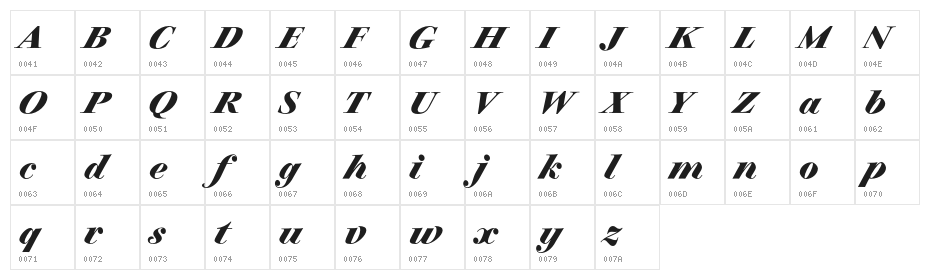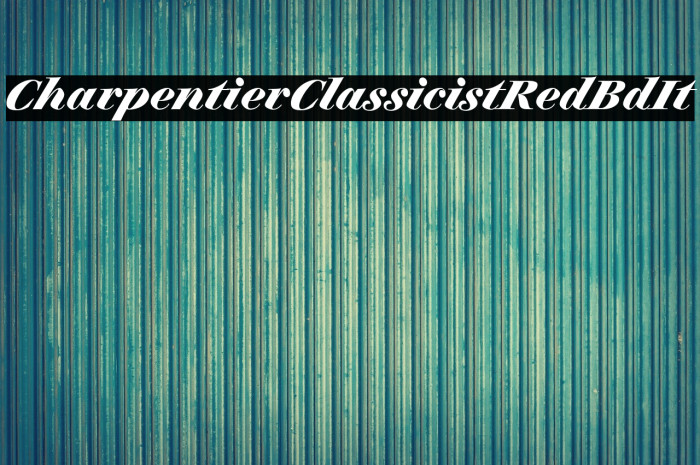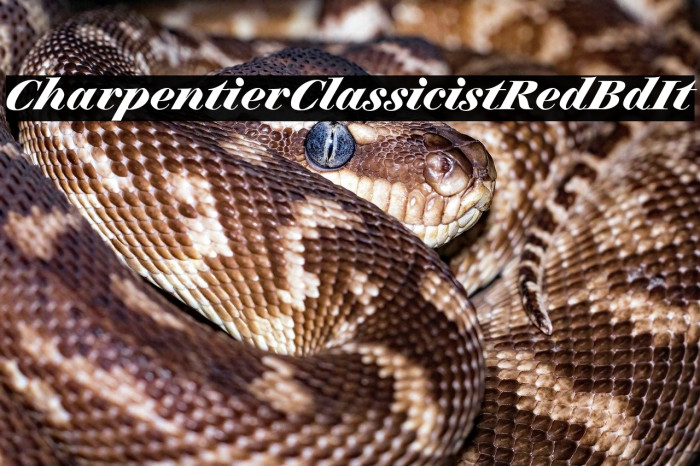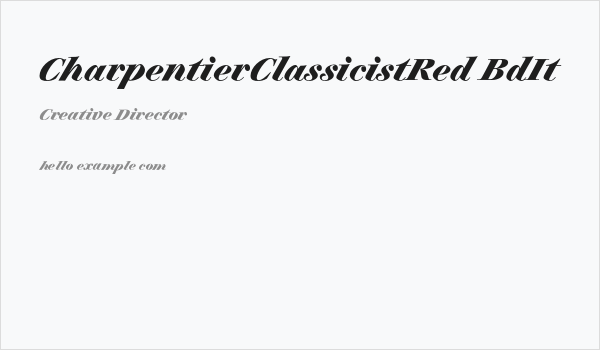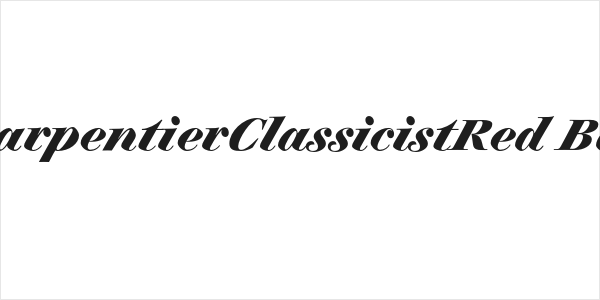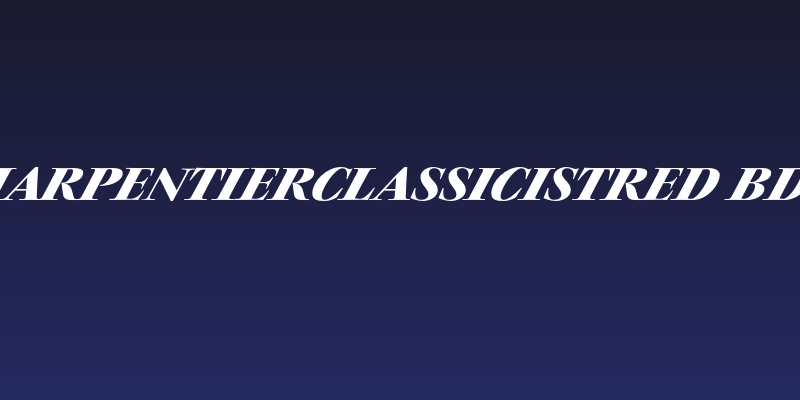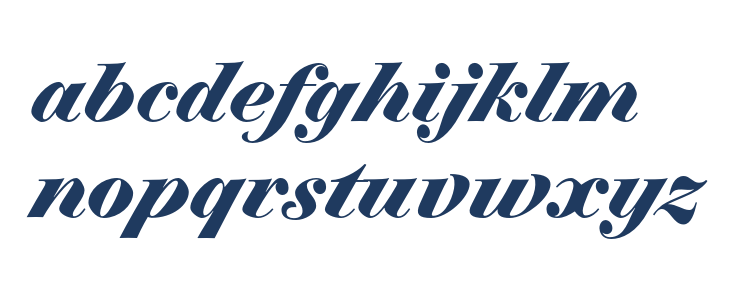
CharpentierClassicistRed-BdIt Font
CharpentierClassicistRed-BdIt Description
This font exhibits a classic and elegant style, characterized by its bold and italicized serif design. The letters have a distinct slant, adding a sense of movement and sophistication. The uppercase letters are grand and commanding, while the lowercase letters maintain a harmonious flow. The numerals are consistent with the overall style, providing a seamless integration with the alphabet. Special characters are designed with the same attention to detail, ensuring versatility in various applications. The font's high contrast between thick and thin strokes enhances its readability and visual appeal, making it suitable for both formal and creative projects.
| Proposed Projects | Ideal for luxury branding, wedding invitations, editorial design, and high-end product packaging. |